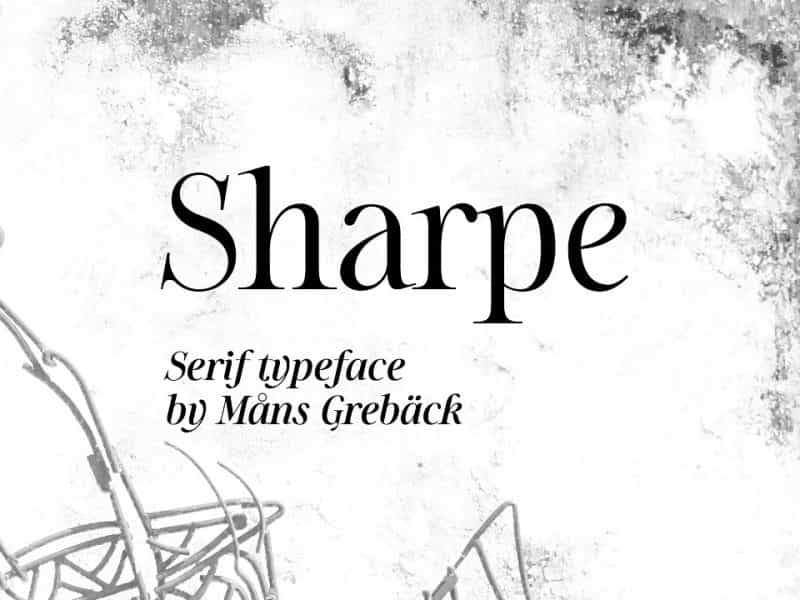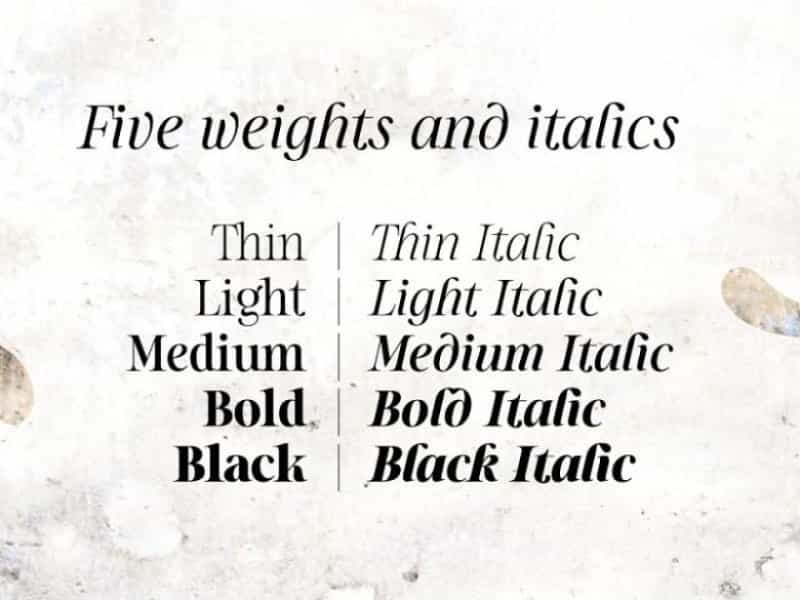
Sharpe is an elegant typeface and comes in a range of styles and weights. The type has been designed by Mans Greback in 2018 and 2019. It has a bold, clear and lively letterforms yet with a conservative underlying structure. All five font weights are nicely balanced one with another, one weight also has an italic equivalent of itself, resulting in ten styles from Thin to Black. Every style has numerals, symbols, punctuation, ligatures, and support for many languages.